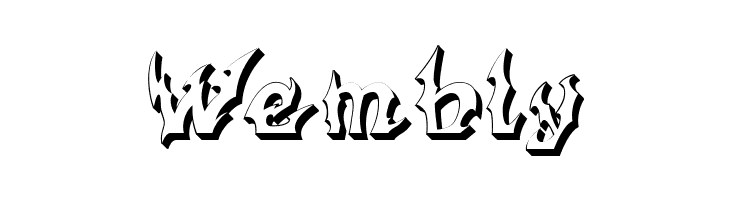
Ambrosia SlopedSmallCaps Font
- Font: Ambrosia SlopedSmallCaps
- Weight: SlopedSmallCaps
A bold, gothic-inspired font with sharp angles and a 3D shadow effect.